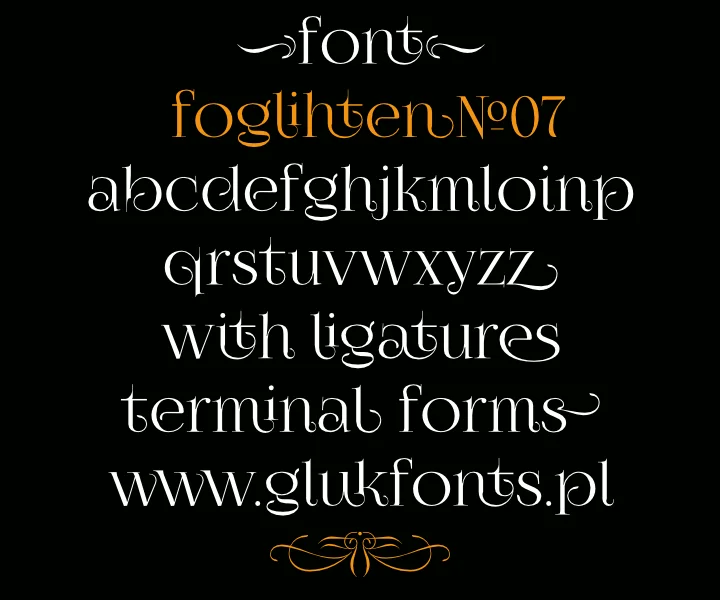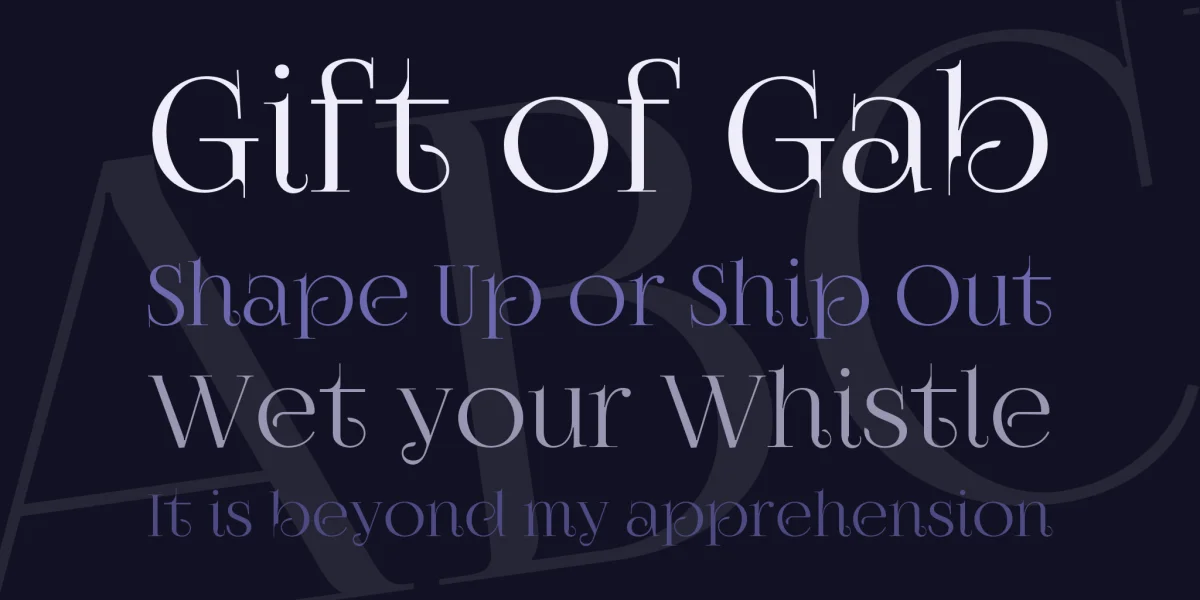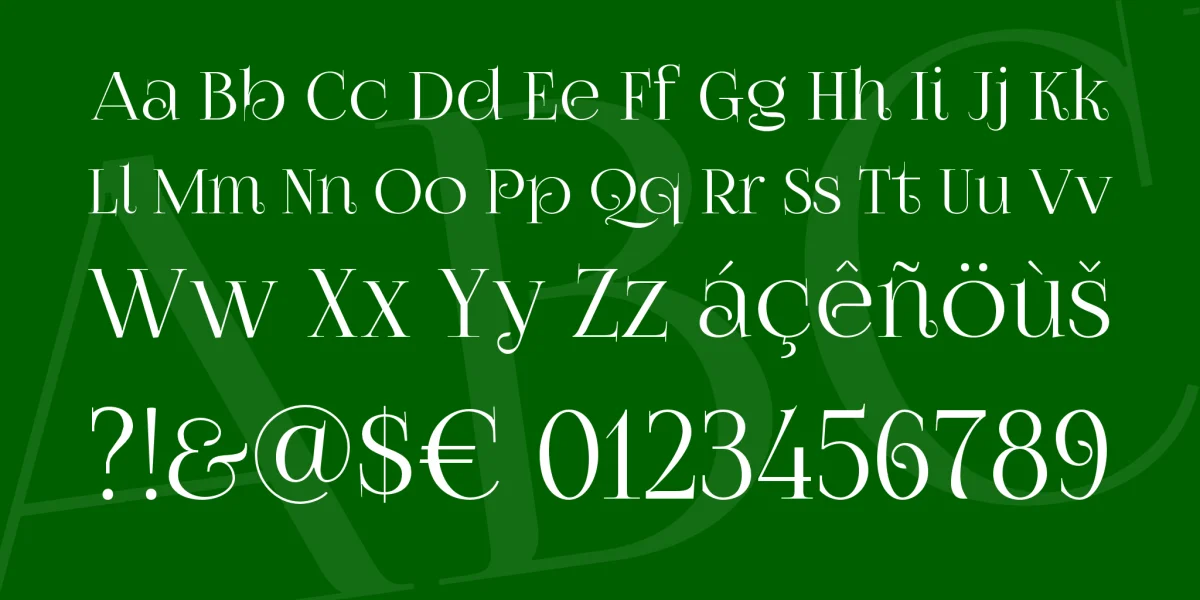
Decorative, serif font Foglihten No07 with standard ligatures, stylistic sets, decorative ligatures, terminal and initial forms. Additional FoglihtenNo07calt with initial and final forms as default contextual alternates and alternate “r”.